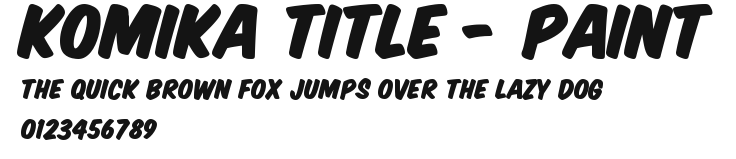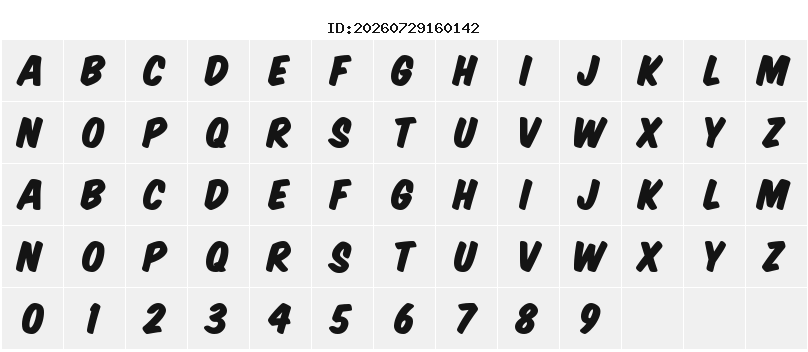
Komika Title - Paint Preview
• Font Name: Komika Title - Paint
• Full Font Name: Komika Title - Paint
• Designer: WolfBainX & Apostrophe
About Komika Title - Paint.ttf
Komika Title - Paint.ttf is a modern, elegant sans-serif font designed for ultimate readability and visual harmony. Perfect for branding, headlines, web design, and print materials.